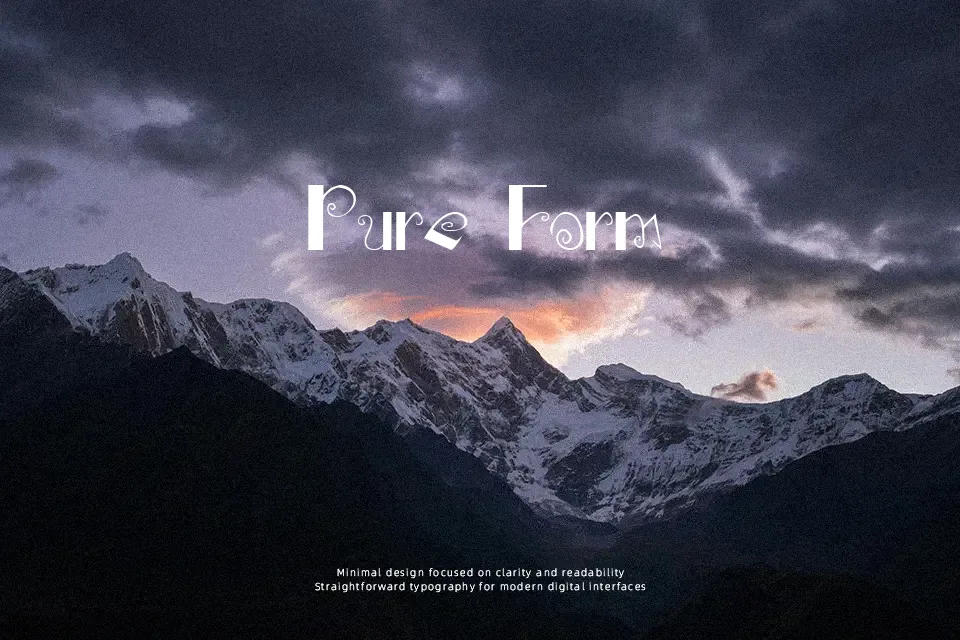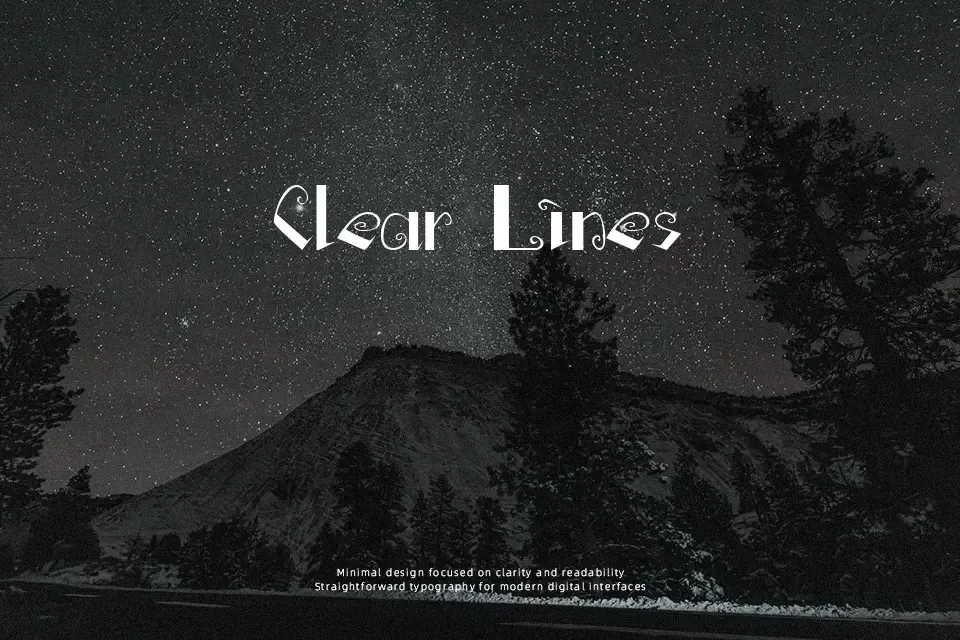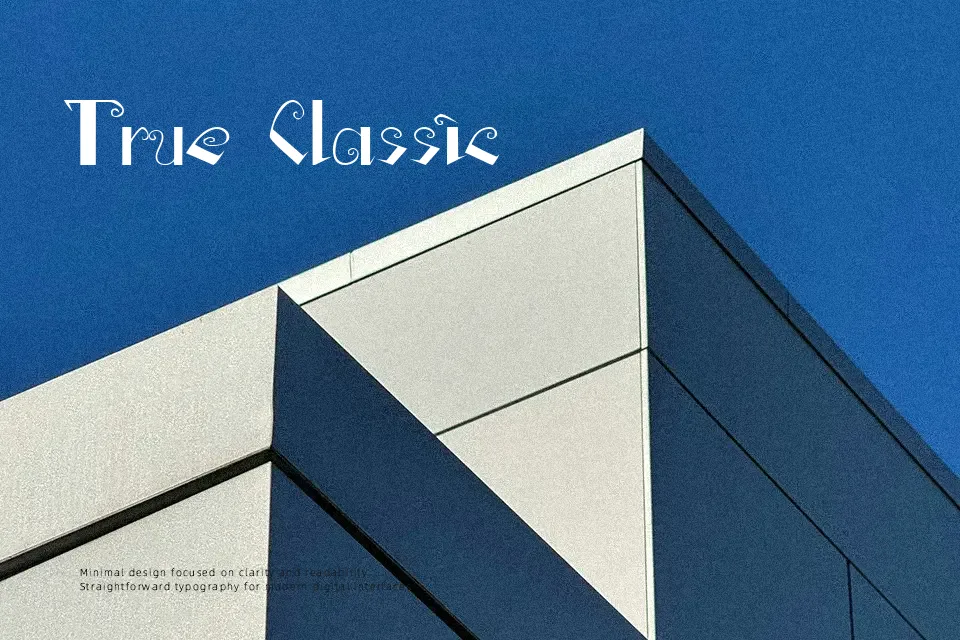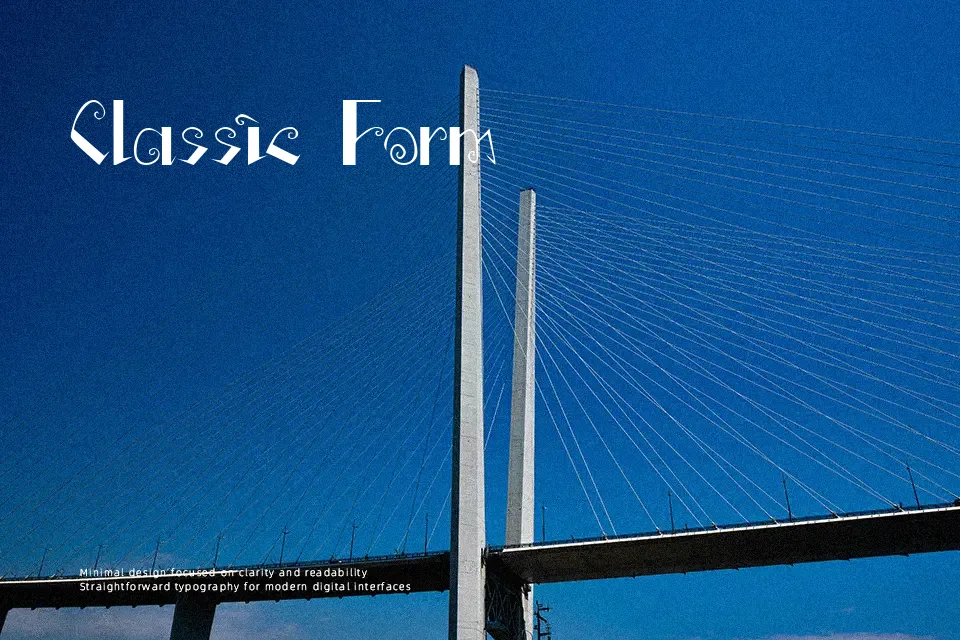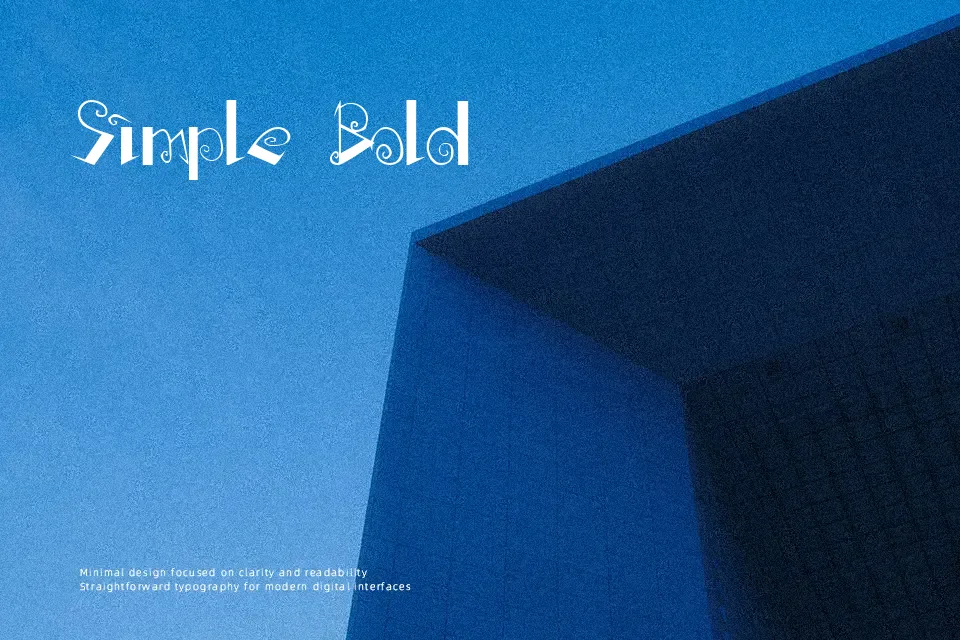
Dizajnerski Font
Dizajnerski Font is a decorative display face with slender strokes, uneven rhythm, and curled terminals that give it a theatrical, hand-drawn feel. The narrow structure and playful details make it more expressive than practical, especially in short headlines where each letter has room to breathe. It works nicely on posters, album-style graphics, fashion labels, or branding that leans artsy rather than polished corporate. In longer text, the unusual forms start to slow reading, and the spacing can feel restless at small sizes. If you want something clean or neutral, this is probably the wrong direction, but for character-driven titles it has a memorable edge.
poster titles, boutique branding, event graphics, album cover text
body text, UI labels, formal business documents, small captions
Perfect for branding, fashion, and headline, with a artistic and decorative style.